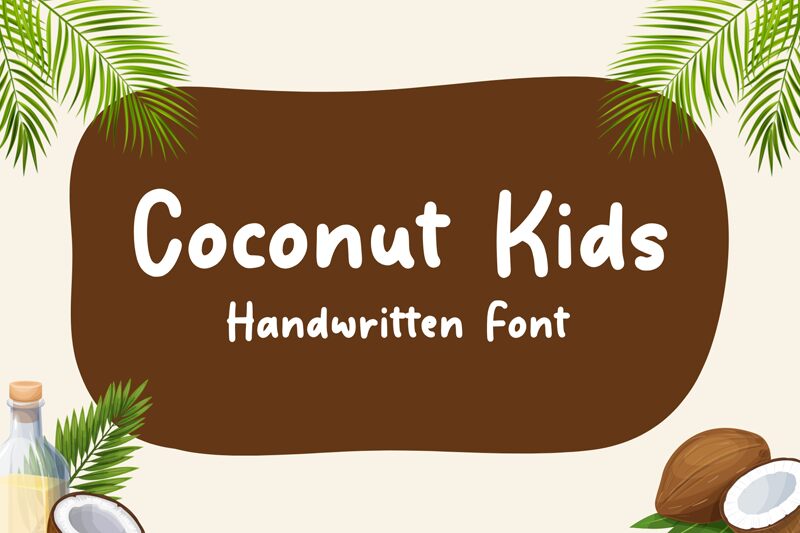
Coconut Kids
Coconut Kids, designed by sronstudio, embodies the playful spirit and effortless charm of a semi-bold handwritten font. Its fluid and personable strokes suggest a casual sophistication that makes it an excellent choice for a wide array of creative endeavors. The artful irregularity of its characters imparts an organic, human touch to any project, making it particularly suitable for invitations, branding, and advertising where a touch of warmth is desired.
The Coconut Kids font captivates with its aesthetic appeal that blends contemporary style with the nostalgic essence of handwritten notes.